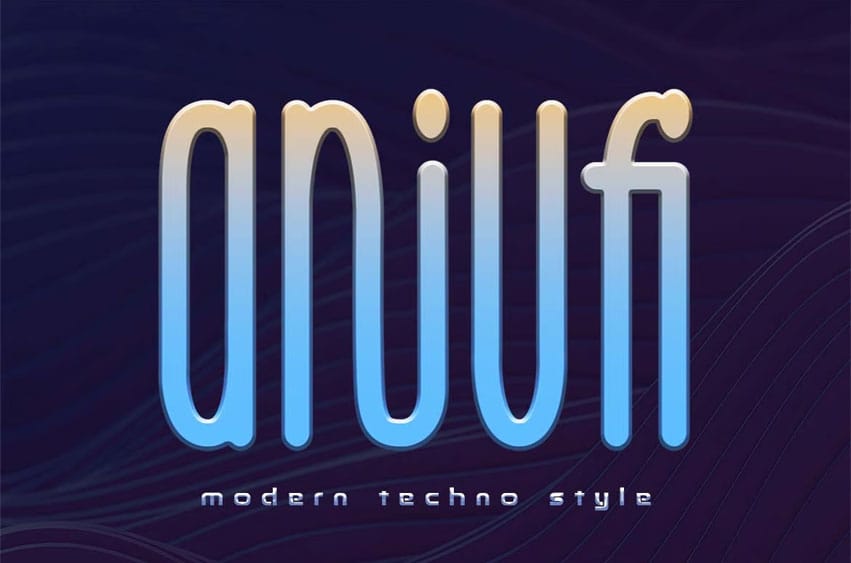
Aniufi Font is a modern, unique, and simple sans font. So perfect for you who needs a typeface for logo designs, magazines, social media, brochures, and many more.